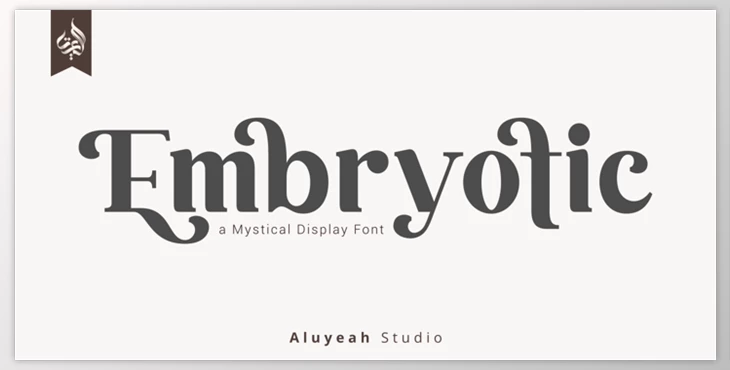
Al Embryotic Font: The font was meticulously designed and influenced by the world's top fashion brands. It is a general font that creates an elegant and sophisticated style.
This is a 90+ luxurious alternative for a truly elegant, beautiful, mystical elegant style.
Make use of this font to create your resort brand, fashion invitations, cosmetics wedding packaging, branding magazines, boutiques restaurants, social media Spa, cards for greetings headlines, headers, and many other things.